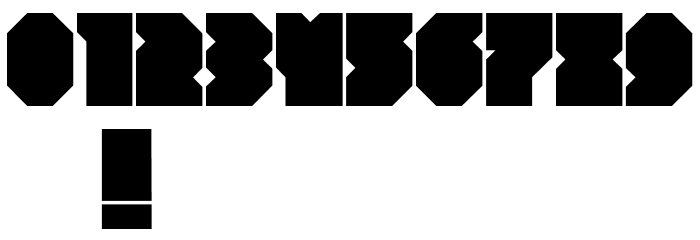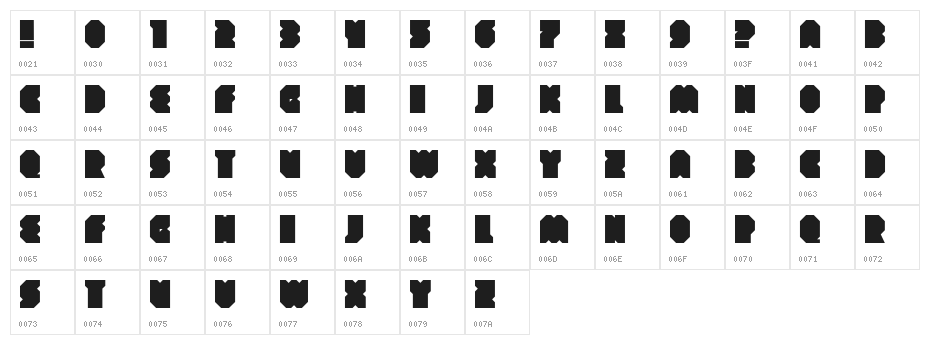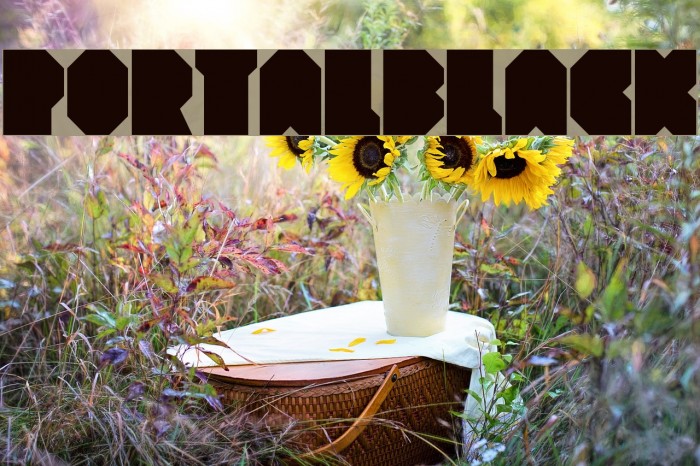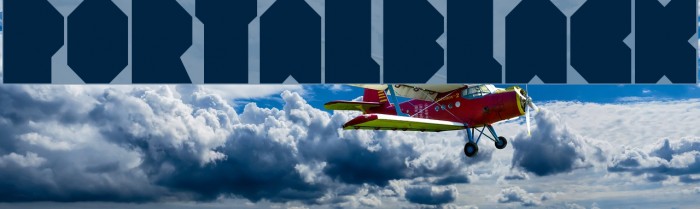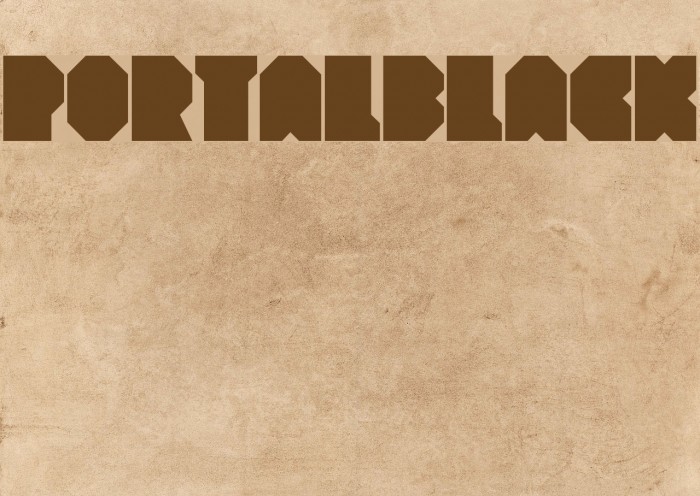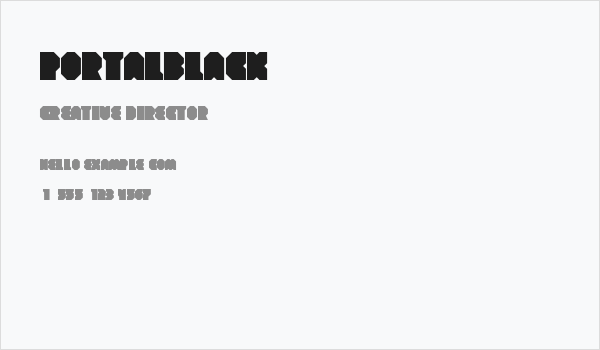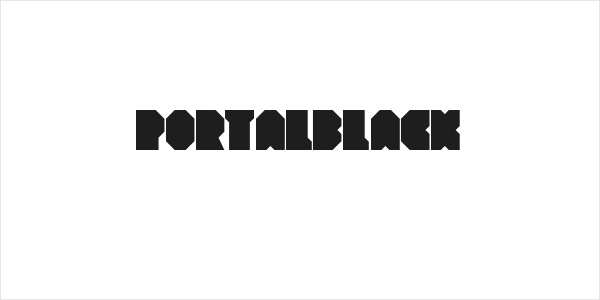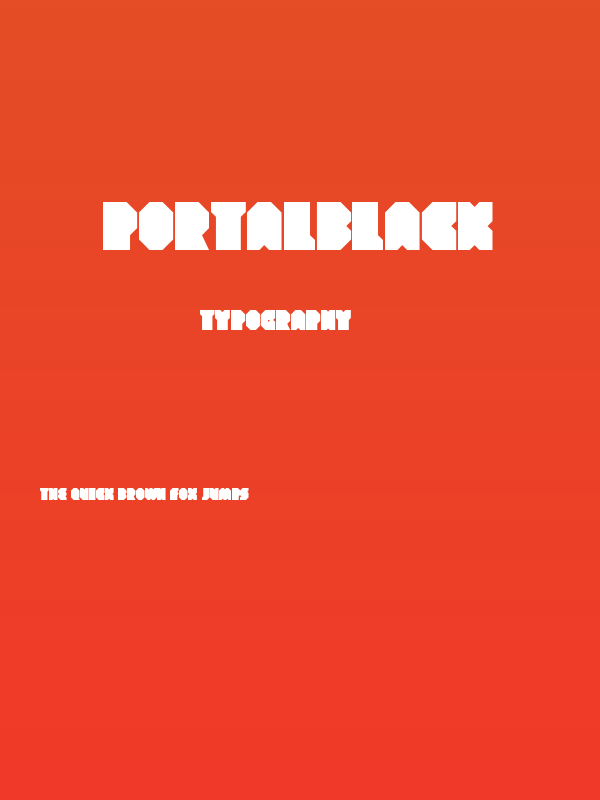
PortalBlack Font
PortalBlack Description
This font features a bold, geometric design with a strong presence. Each character is constructed with sharp angles and a blocky appearance, creating a sense of solidity and strength. The uppercase and lowercase letters maintain a consistent style, emphasizing uniformity and balance. The numbers and special characters follow the same design principles, ensuring a cohesive look across all elements. The font's unique style makes it stand out, ideal for projects that require a modern and impactful aesthetic.
| Proposed Projects | Ideal for branding, posters, headlines, and any design that requires a bold statement. |